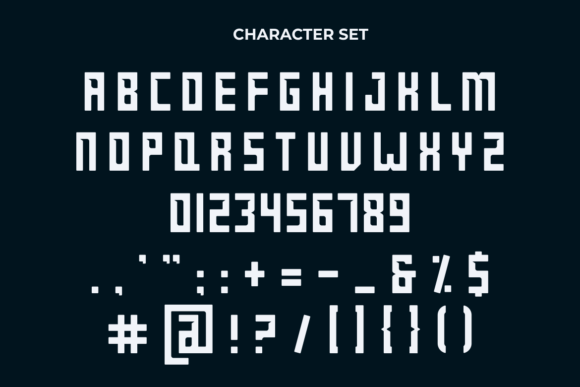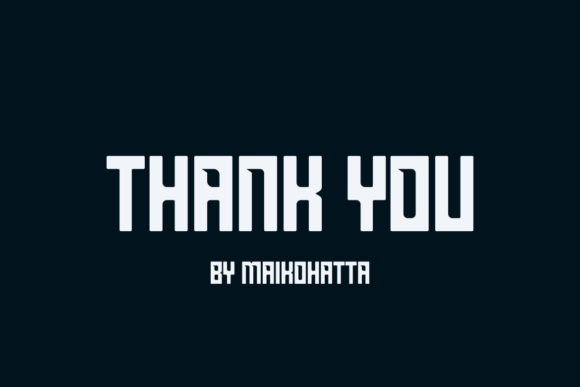
Introducing Featuristic Font: Elevate Your Branding with a Bold and Authentic Display Font
In the world of design, fonts play a crucial role in conveying the message and aesthetic of a brand. A well-chosen font can make all the difference in creating a lasting impression on your audience. If you’re a designer, craftsperson, or business owner looking for a font that can elevate your branding to the next level, look no further than Featuristic Font. This bold and authentic display font is designed to make your work stand out in a wide range of contexts, from logos and T-shirt printing to esports and more.
What Makes Featuristic Font So Special?
Featuristic Font is not just another font; it’s a game-changer. Its unique design elements and bold personality make it perfect for brands that want to make a statement. Here are some key features that set Featuristic Font apart:
- Bold and Authentic: Featuristic Font boasts a bold and authentic design that’s sure to grab attention. Its sturdy lines and confident curves make it perfect for headlines, titles, and short phrases.
- Versatile: Whether you’re working on a logo, T-shirt design, or esports project, Featuristic Font is guaranteed to make your work extraordinary. Its versatility ensures that it can adapt to a wide range of contexts and applications.
- Highly Legible: Despite its bold design, Featuristic Font remains highly legible, even at smaller sizes. This makes it perfect for use on various platforms, from business cards to billboards.
Use Cases for Featuristic Font
Featuristic Font is an incredibly versatile font that can be used in a variety of contexts. Here are some use cases to inspire you:
- Logo Design: Create a bold and memorable logo that sets your brand apart from the competition. Featuristic Font’s unique design elements make it perfect for logotypes and wordmarks.
- T-Shirt Printing: Take your apparel game to the next level with Featuristic Font. Its bold design and high legibility make it perfect for printing on T-shirts, hoodies, and more.
- Esports: If you’re part of the esports industry, you know how important it is to have a strong brand identity. Featuristic Font can help you create a bold and professional look that’s sure to impress your audience.
- Advertising and Marketing: Use Featuristic Font to create eye-catching headlines and titles that grab attention. Its bold design and high legibility make it perfect for use in advertising and marketing materials.
Tips for Using Featuristic Font Effectively
To get the most out of Featuristic Font, here are some tips to keep in mind:
- Use it Sparingly: Featuristic Font is bold and attention-grabbing, so use it sparingly to avoid overwhelming your audience. Use it for headlines and titles, and pair it with a simpler font for body text.
- Experiment with Colors: Featuristic Font looks great in a variety of colors, so don’t be afraid to experiment. Try using it in different colors to create a unique look that matches your brand’s personality.
- Pair it with Other Fonts: Featuristic Font can be paired with other fonts to create a unique and visually appealing combination. Try pairing it with a sans-serif font for a modern look or a serif font for a more traditional feel.
In conclusion, Featuristic Font is a bold and authentic display font that’s perfect for designers, craftspersons, and business owners looking to elevate their branding. Its unique design elements, versatility, and high legibility make it guaranteed to make your work extraordinary. Whether you’re working on a logo, T-shirt design, or esports project, Featuristic Font is the perfect choice. So why wait? Download Featuristic Font today and take your branding to the next level!